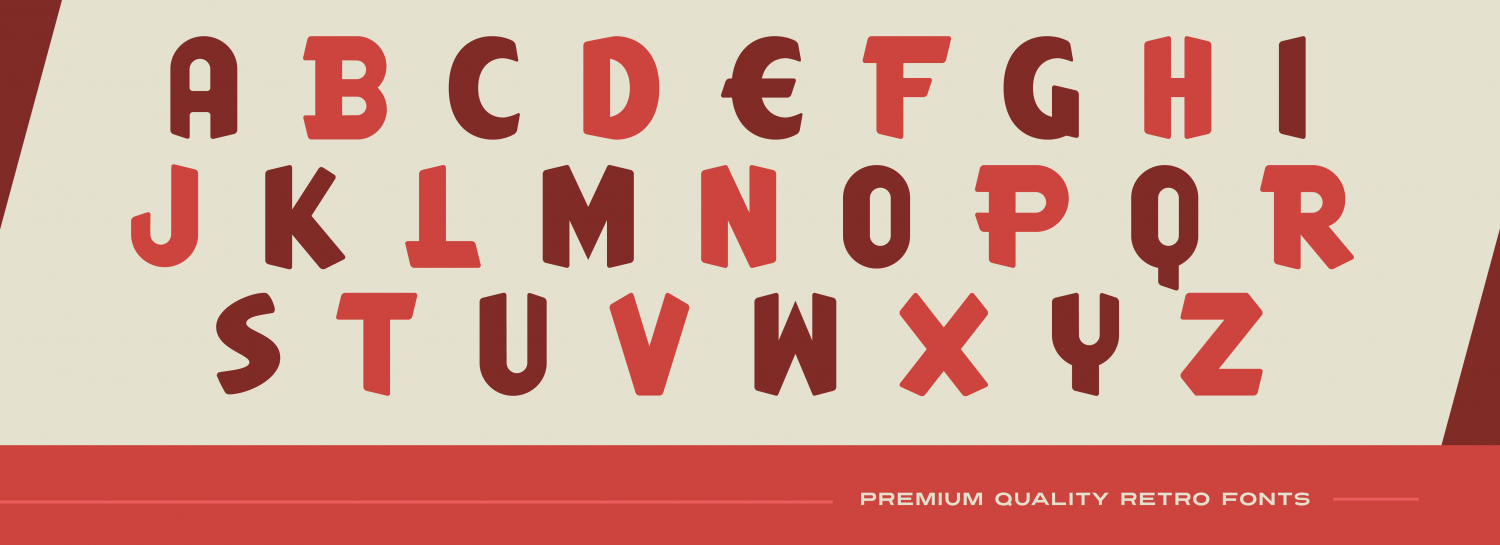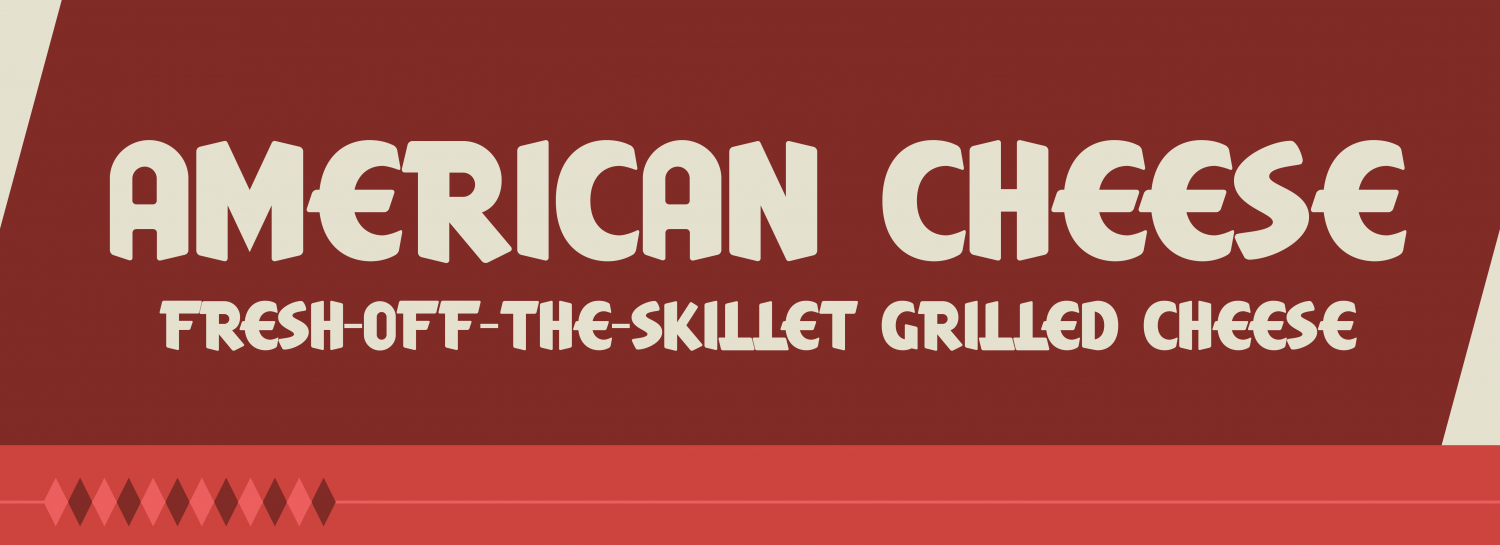
HomeFont BrosAmerican Cheese Font Bros American Cheese FacebookXPinterestWhatsApp 1 of 2 About American Cheese If it\’s in sight, it must be right! Grab this bold Art Deco sans serif the next time you\’re hankering for a tasty steakburger and a milkshake!  DOWNLOAD ON FONT BROSThis font is sold and delivered by Font Bros. Font Canyon may earn a commission if you buy through this link. People also explored Callerious Font Rise Above Font Printers in Marks Font Kaiden Font Andalusia Signatera Font Hello Teacher Font Cute Rustic Font Rhinatta Font Rosallia Font 436 0 TagsAmerican Cheese Font Previous articleMakerNext articleFloral Notes LEAVE A REPLY Cancel reply Comment: Please enter your comment! Name:* Please enter your name here Email:* You have entered an incorrect email address! Please enter your email address here Website: Save my name, email, and website in this browser for the next time I comment. Personal Use Free Shelly Personal Use Free Read more about this font Anti Personal Use Free Read more about this font Engine Personal Use Free Read more about this font Kaylafiz Personal Use Free Read more about this font BLOG How to Install and Use Fonts on Windows, macOS, and Web Projects How to Install and Use Fonts on Windows, macOS, and Web Projects Fonts are a crucial part of design and branding. Whether you’re designing a... How to Cut Any Font on Cricut: Convert a Font to SVG (Free) Best Fonts for YouTube Videos: Make Your Thumbnails Stand Out 5 Fonts That Will Dominate Design Trends in 2026